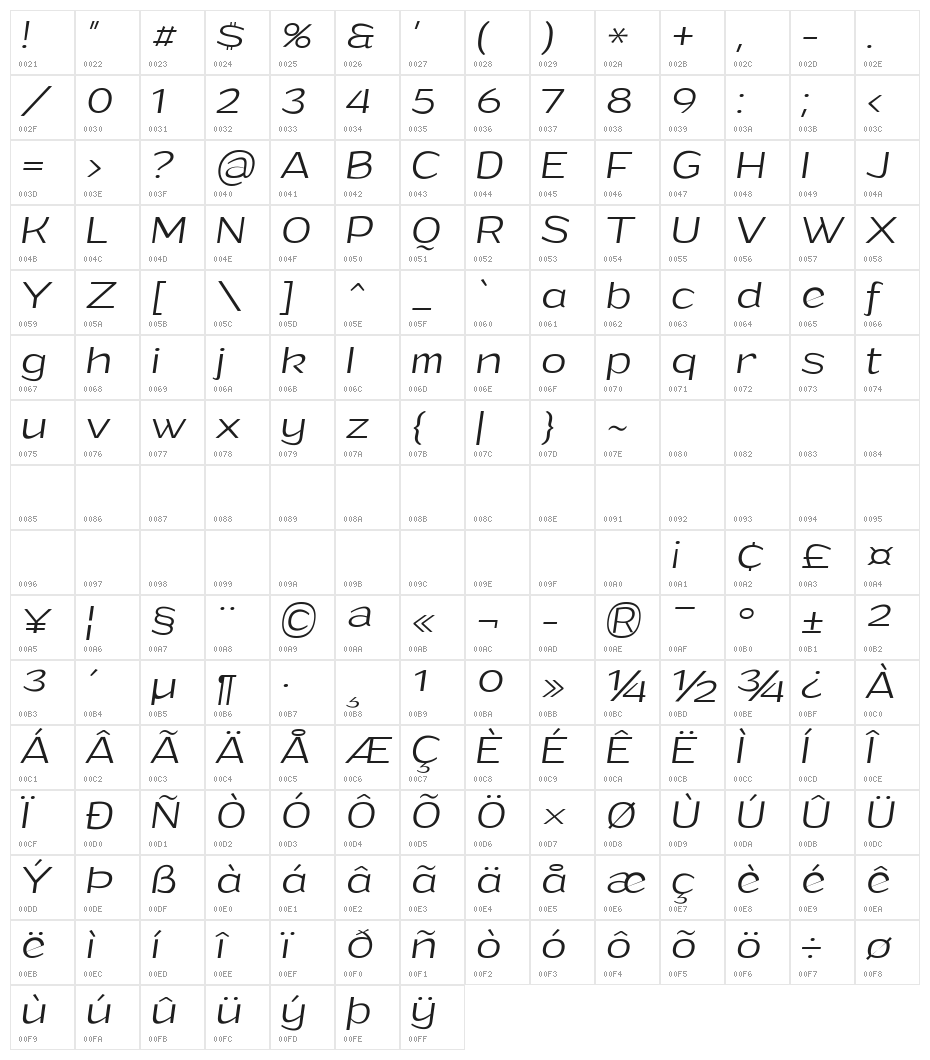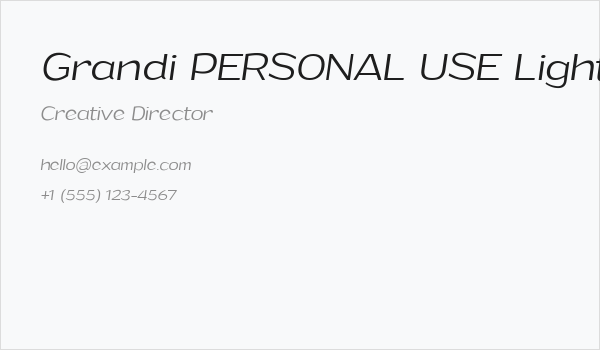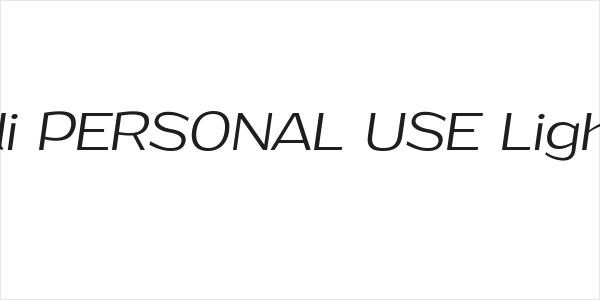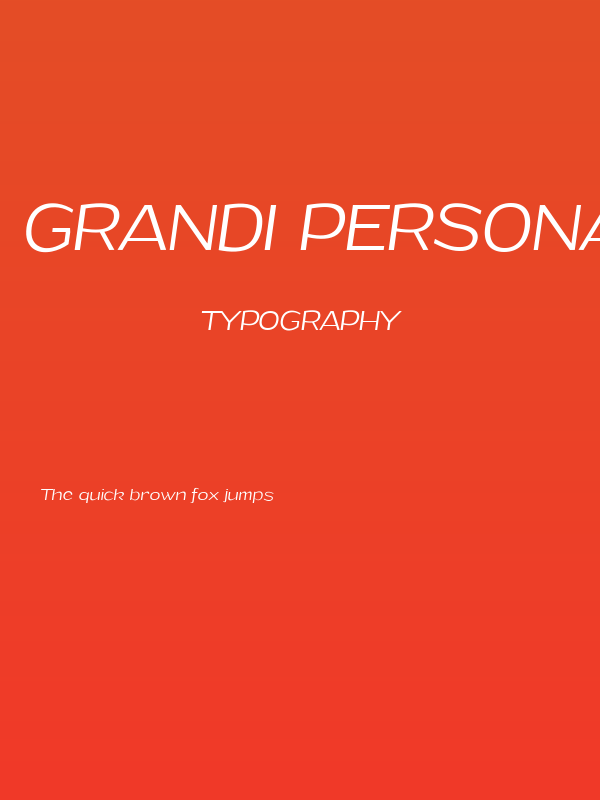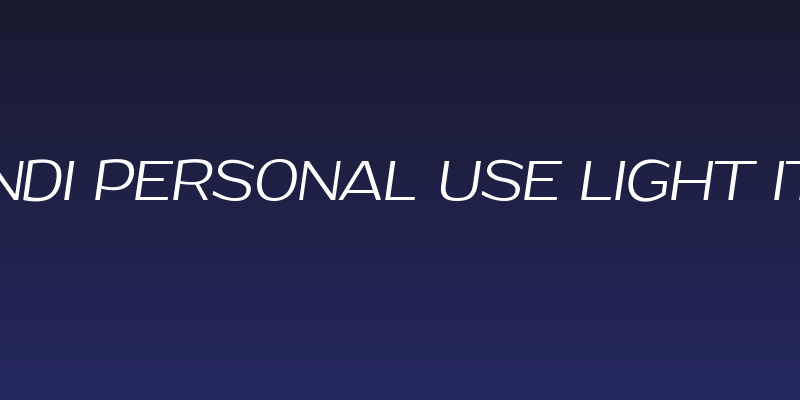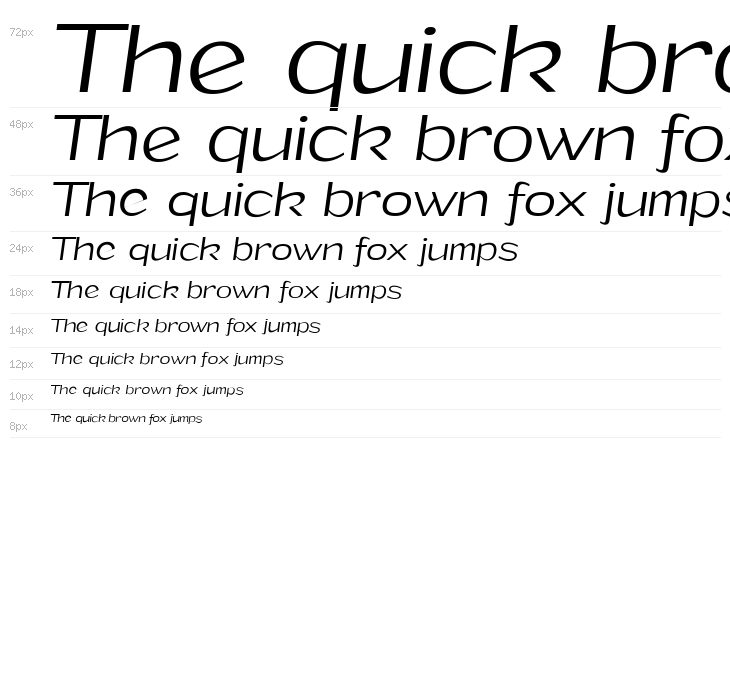
Grandi PERSONAL USE Light Italic Font
Grandi PERSONAL USE Light Italic Description
This font features a sleek and modern design with a light weight and italic style. The characters are elegantly slanted, giving a sense of motion and fluidity. The sans-serif design ensures a clean and uncluttered appearance, making it highly readable. The spacing between characters is normal, providing a balanced and harmonious look. The numerals and special characters maintain the same elegant style, ensuring consistency across all text elements. This font is perfect for projects that require a contemporary and sophisticated touch.
| Proposed Projects | Ideal for branding, modern web design, fashion magazines, and elegant invitations. |